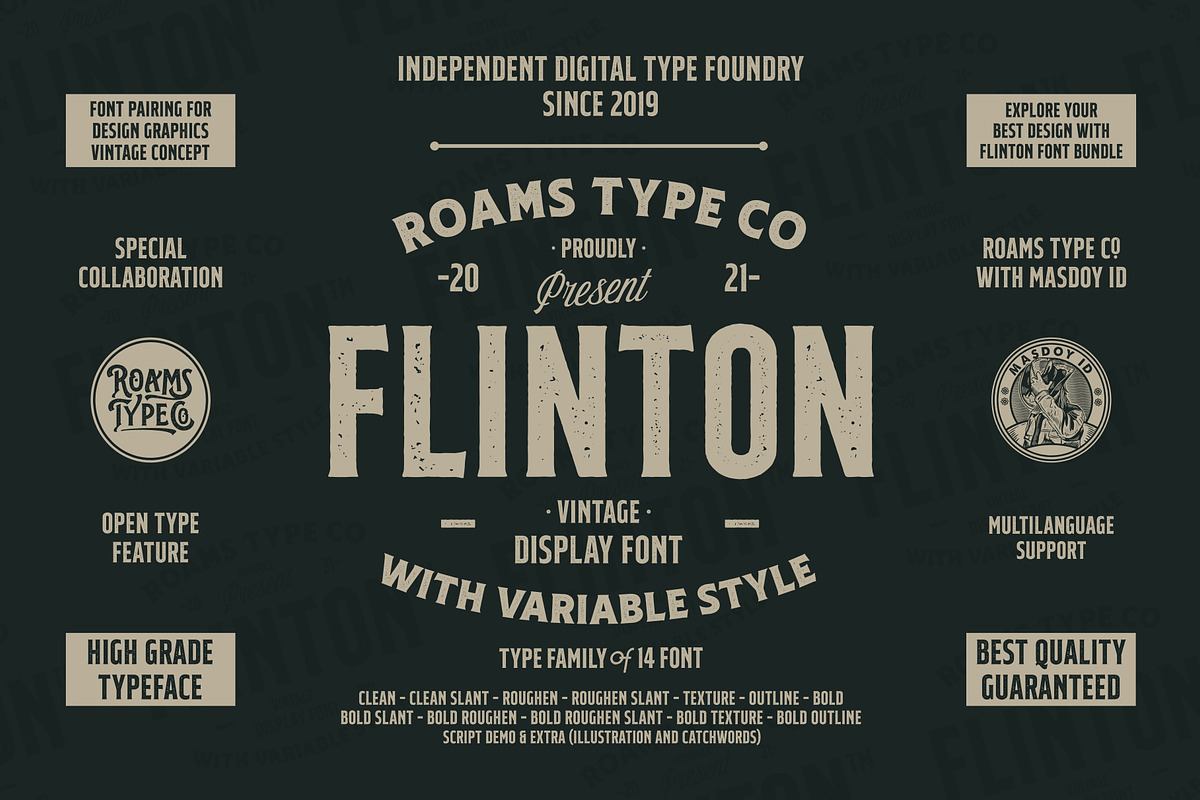
Flinton - Vintage Bundle Fonts Free Download
Flinton - Vintage Bundle Fonts Free Download is a comprehensive collection of vintage-inspired fonts that combine classic typography with modern touches. Featuring a mix of retro scripts, serif fonts, and decorative display styles, this bundle is perfect for logos, posters, branding, product packaging, social media content, and anything that needs a nostalgic, vintage feel.
The Flinton bundle offers versatile options for creating bold, stylish designs with a timeless charm. Whether you're working on a rustic brand identity, a vintage-style product label, or a retro event invitation, this font collection provides all the options you need to make your design stand out.